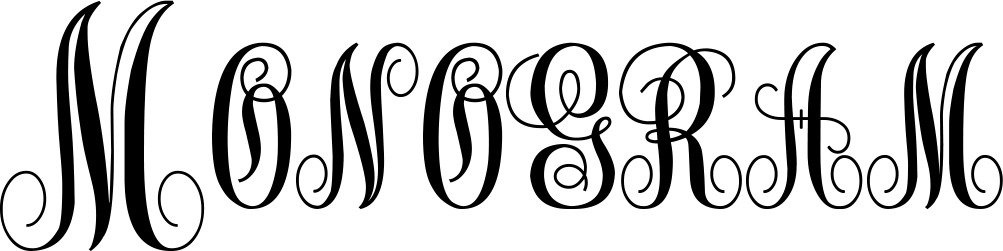
Monogram KK Font
Carry out a fun, attractive, playful feel, by going with this specific initial font that has thin, creative, and curly characters! Your typography may be difficult to read, but for sure the stylish look is worth utilizing Monogram KK.
Capitalized A to Z alphabet letters are only available for this free embroidery font, leaving aside lowercase letters, numbers, and symbols. The best places for Monogram KK are books, branding, logos, stationery, and wherever you need something decorative like this amazing font!
Curly monogram letter based on Victorian Initials. Capital letters and raised small caps only.